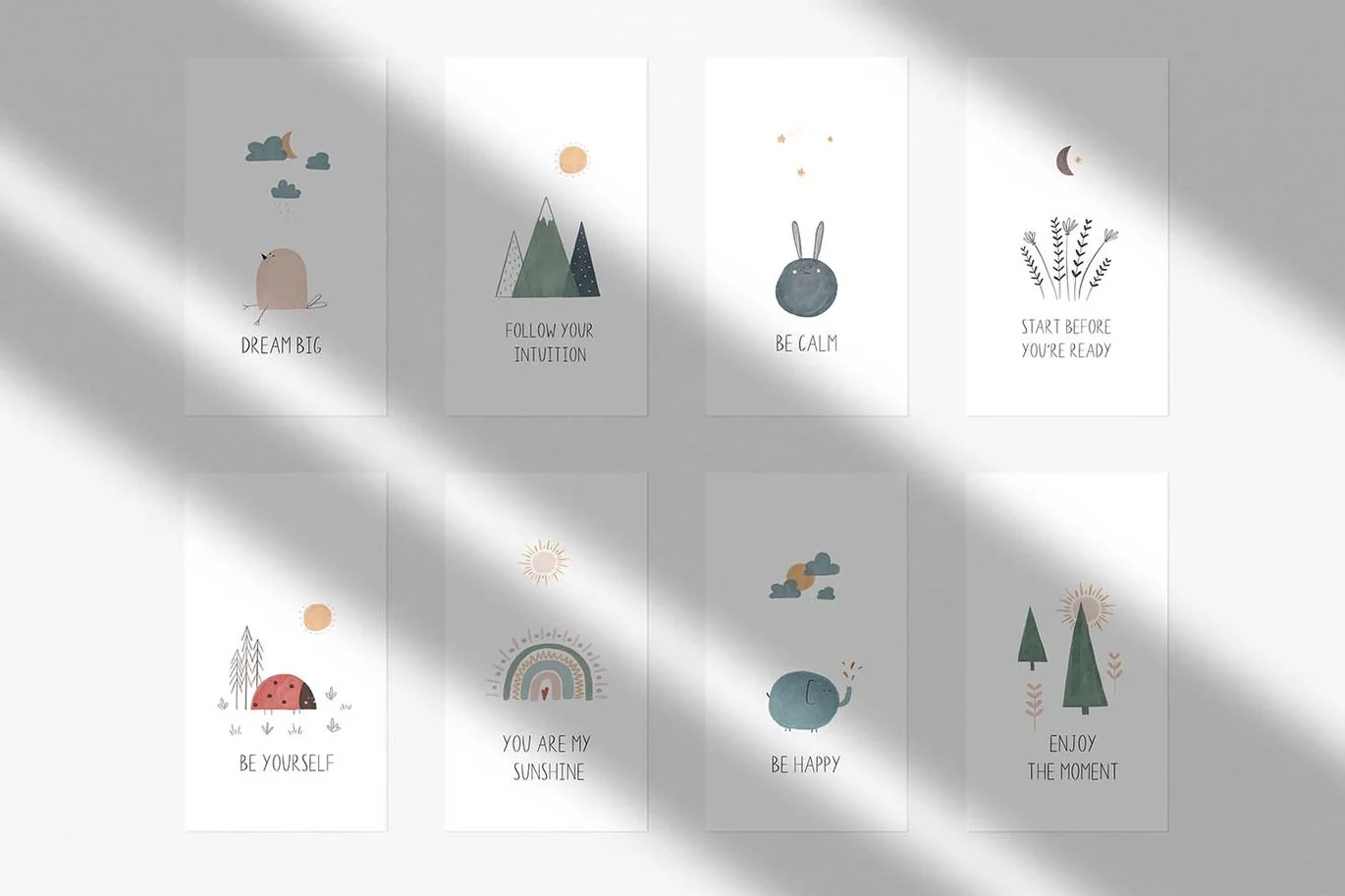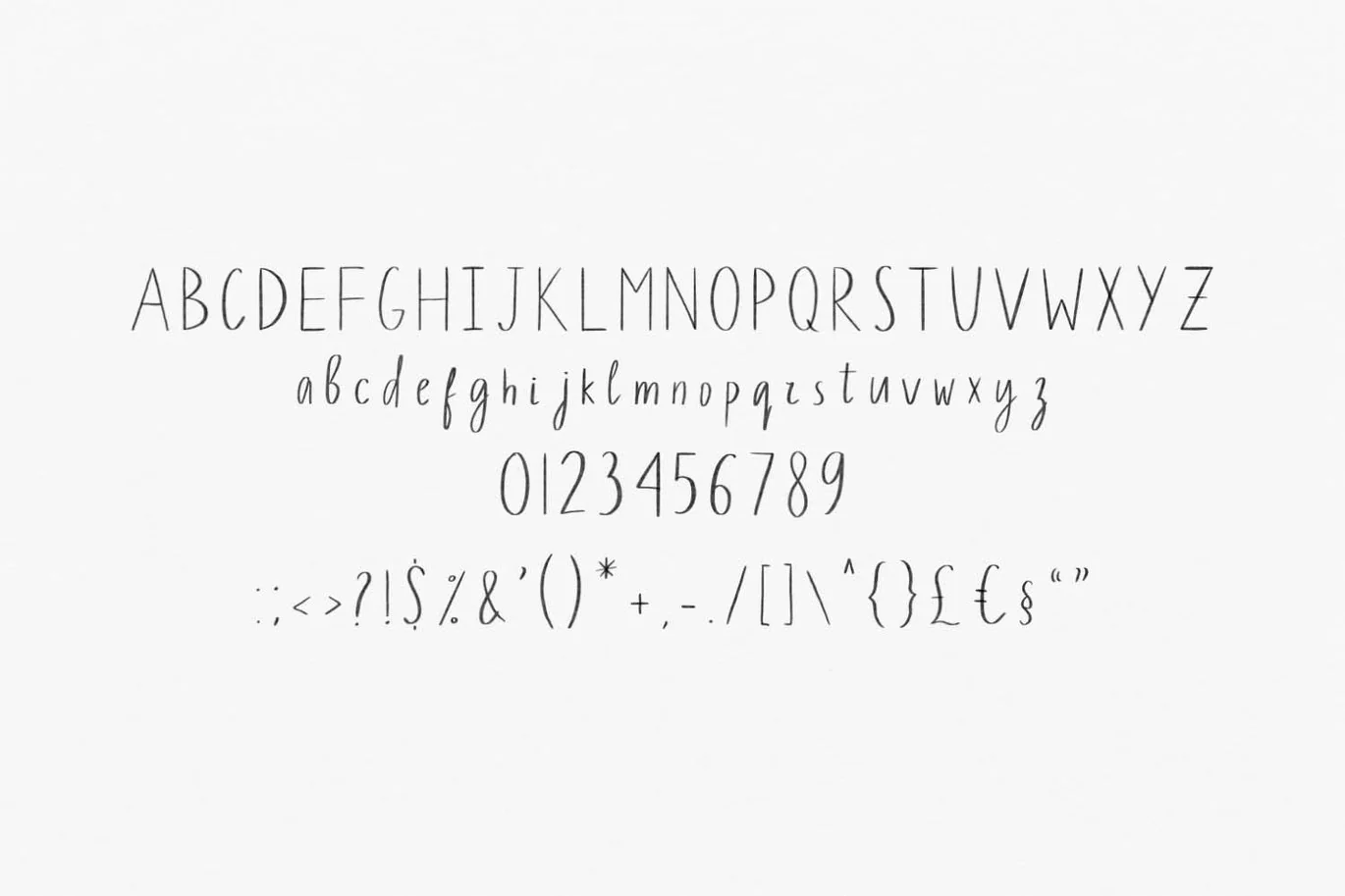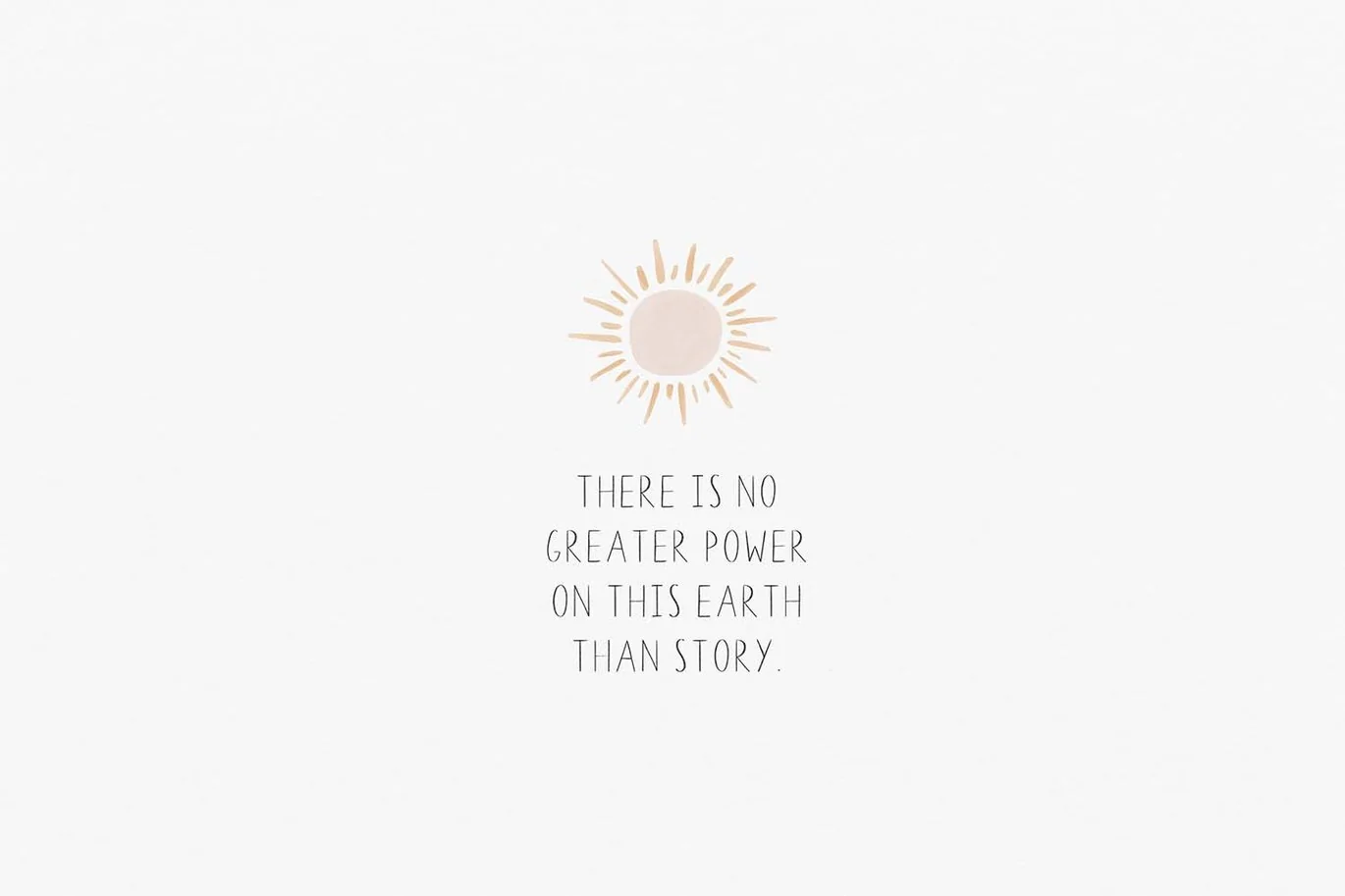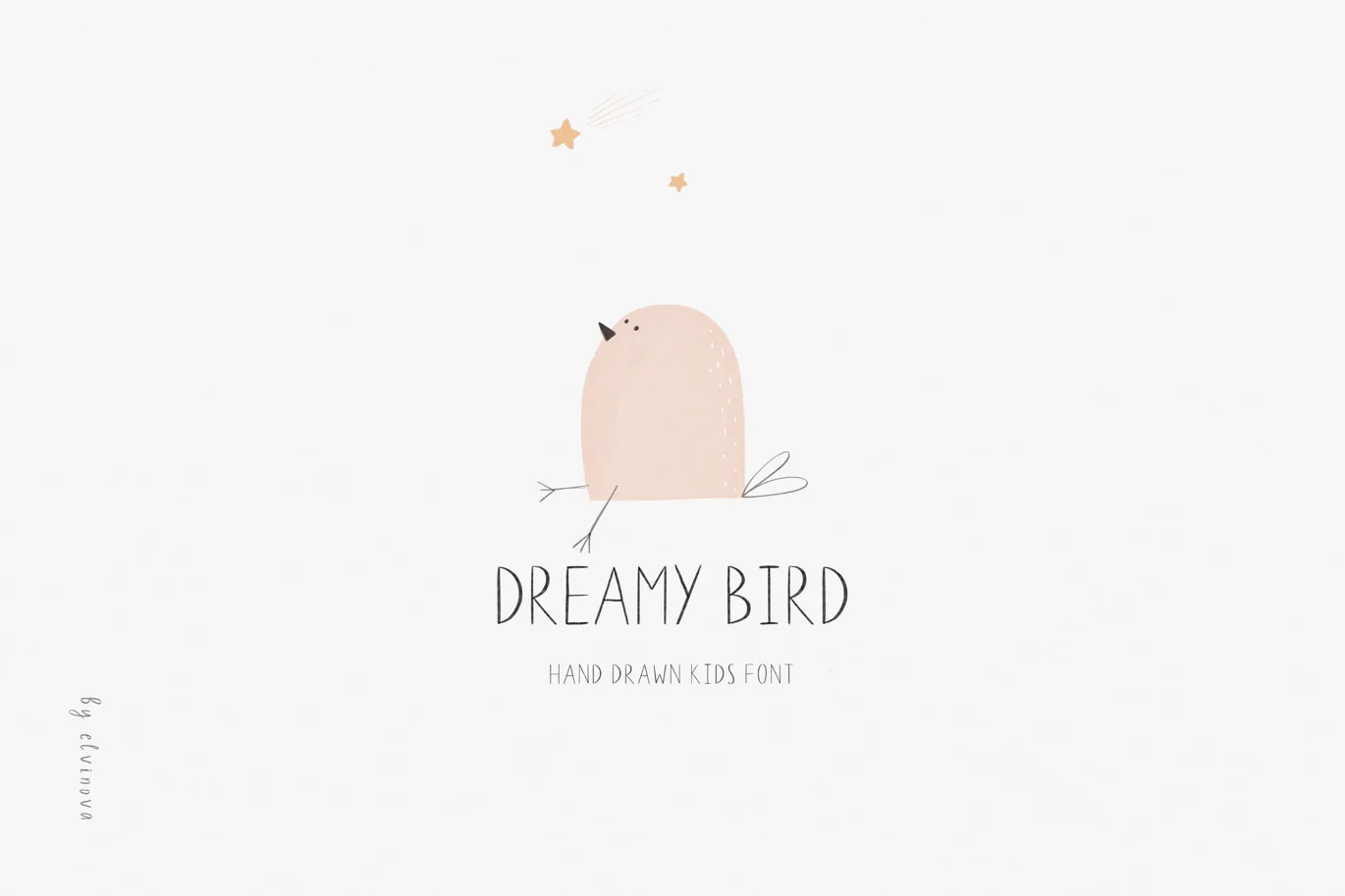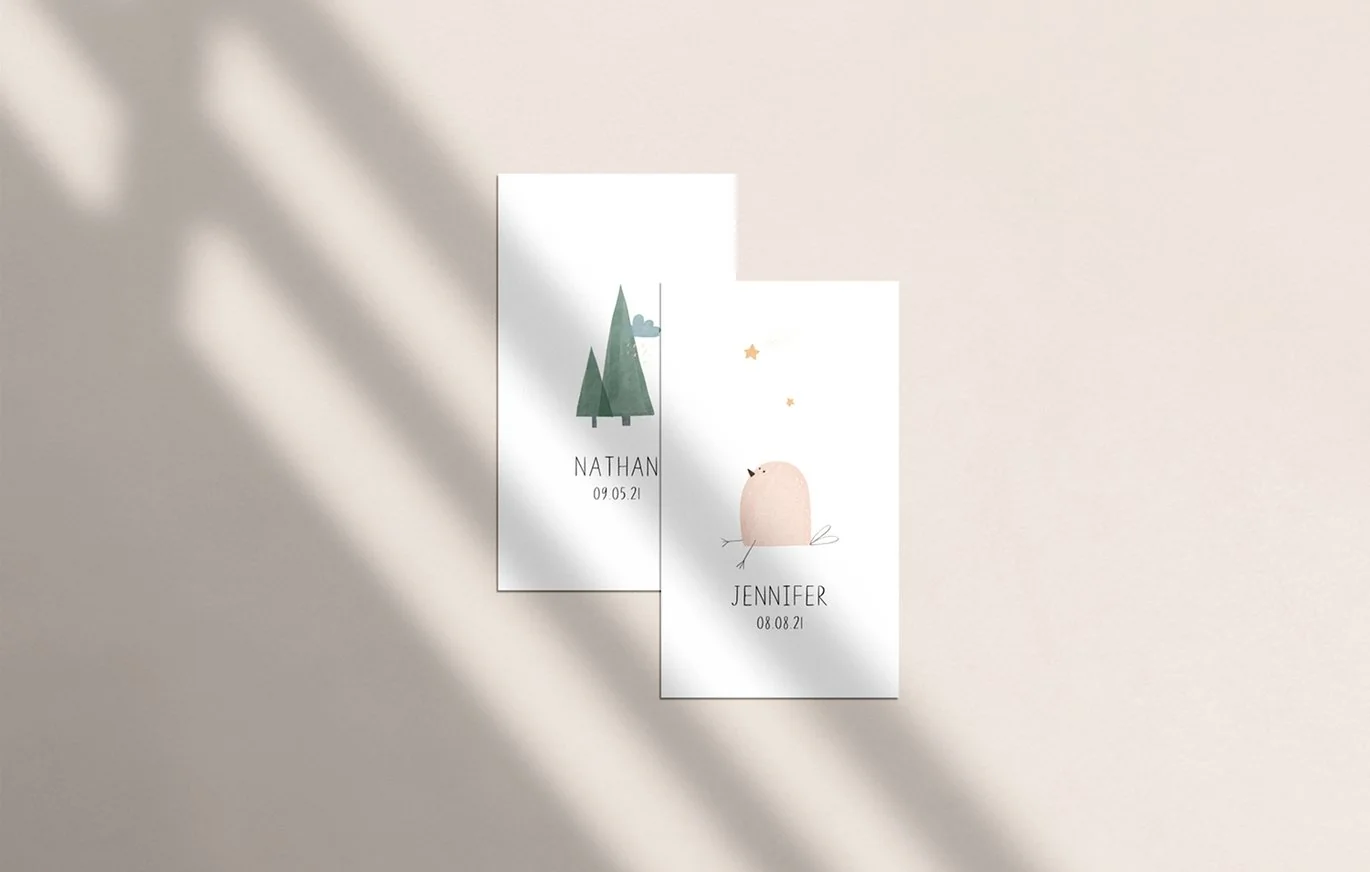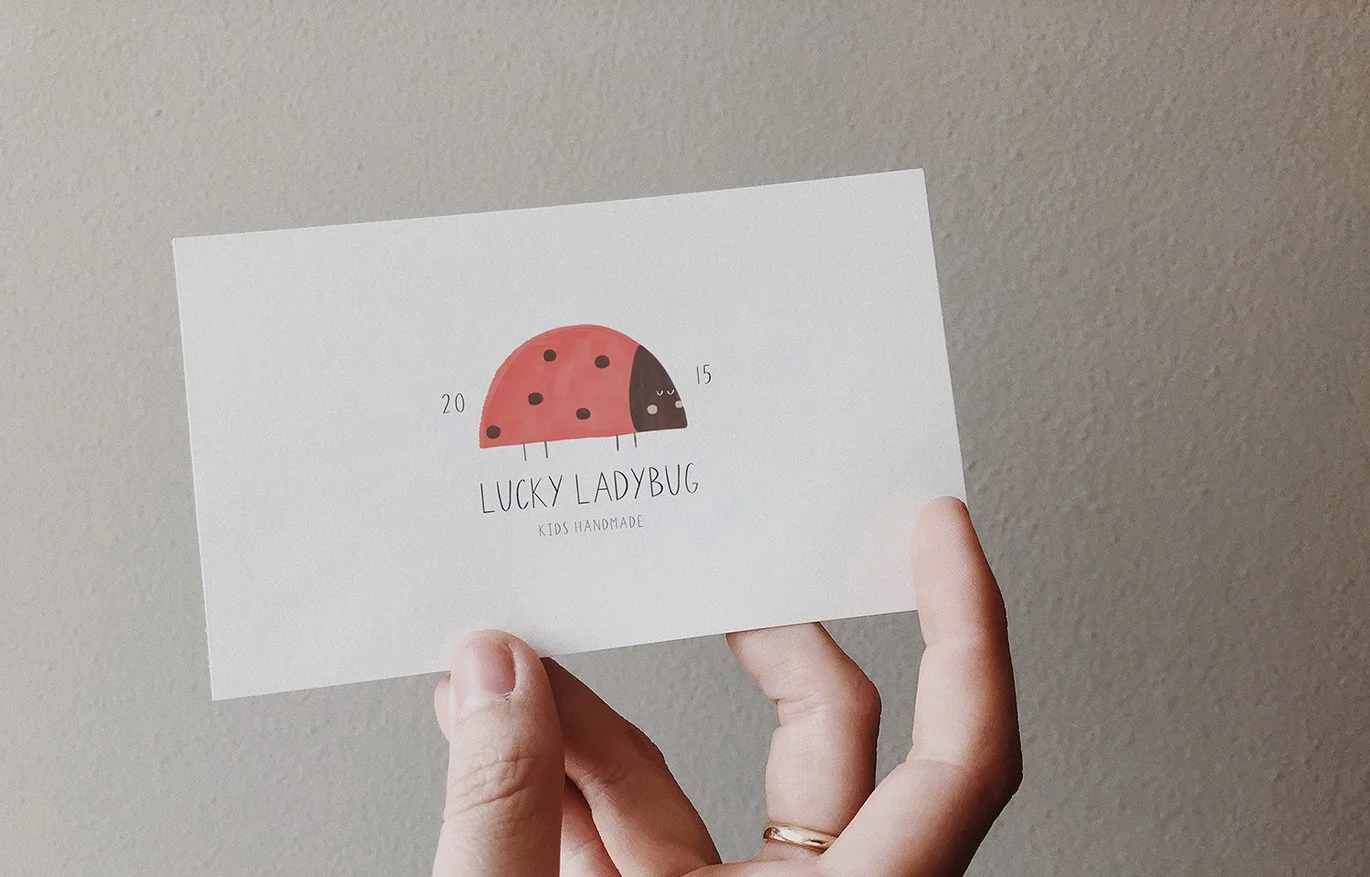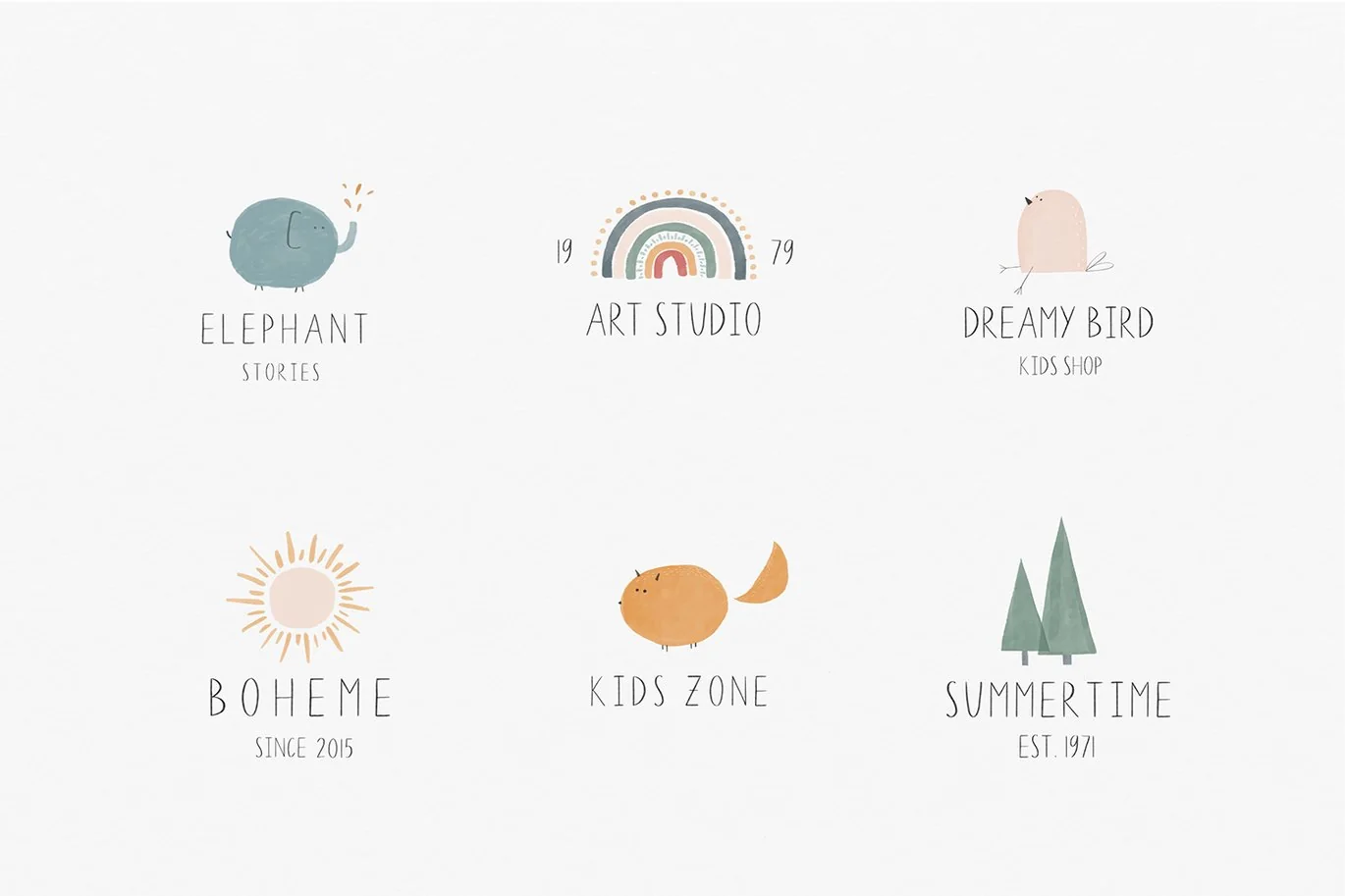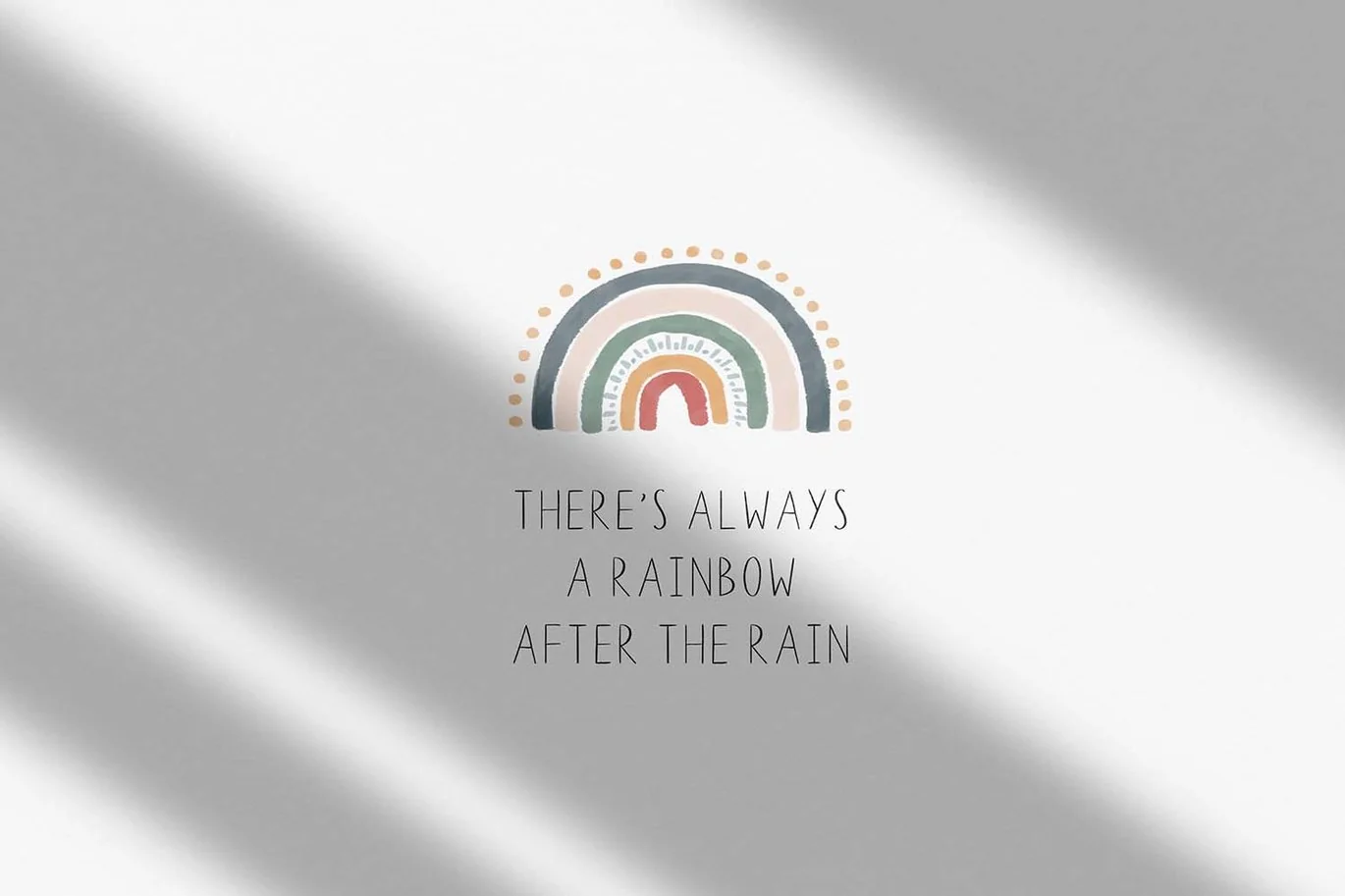
Dreamy bird cute font
Dreamy bird is a collection of display serif typeface. Perfect for logos, cards, posters and other designs. So sweet and lovely π
Dreamy Bird SVG font (+ vector version) that contains upper and lowercase characters, number 0-9 and a range of punctuation and symbols (OTF);